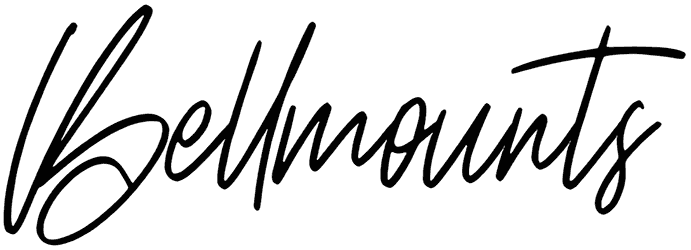
Bellmounts Font
If you crave to add a personalized touch to artwork such as greeting cards, flyers, logos, and gift cards but lack a suitable font, we offer you to pick up a script font such as Bellmounts that comes with a cursive design that dances along the baseline.
This handwritten font is designed with accurate curves to share a sense of precision and softness with the audience. Considering all its benefits, the lack of numbers and good readability isn’t important.